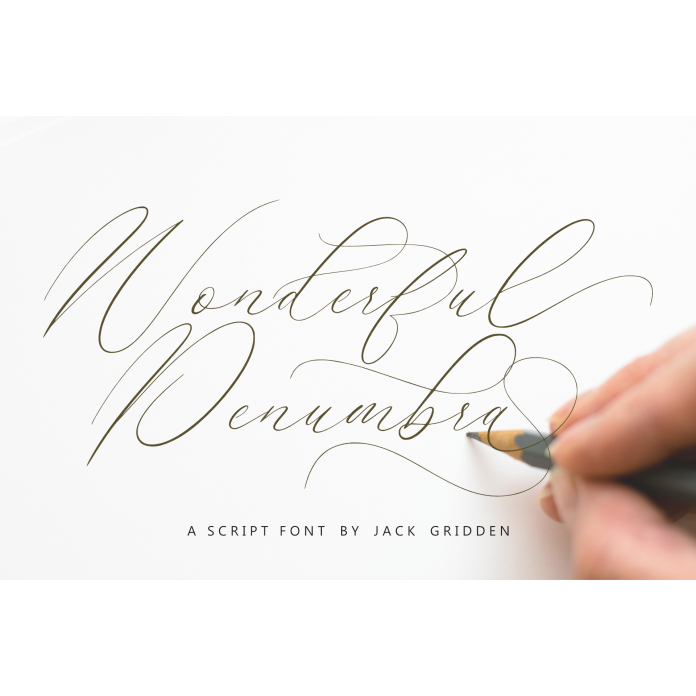
Welcome to the captivating world of Wonderful Penumbra, where elegance meets expressiveness in every stroke. This meticulously crafted script font exudes a timeless charm, perfect for adding a touch of sophistication to your projects. With its graceful curves and fluid lines, Wonderful Penumbra effortlessly captures the essence of handwritten beauty, making it an ideal choice for invitations, branding, packaging, and more. Elevate your designs with the unique allure of Wonderful Penumbra, and let your creativity shine.